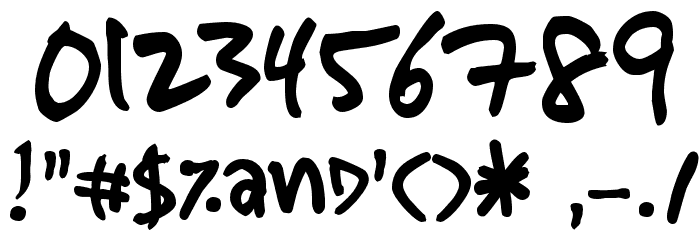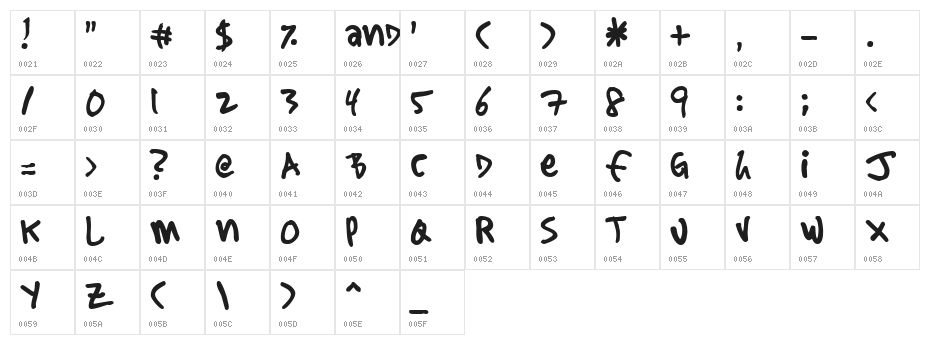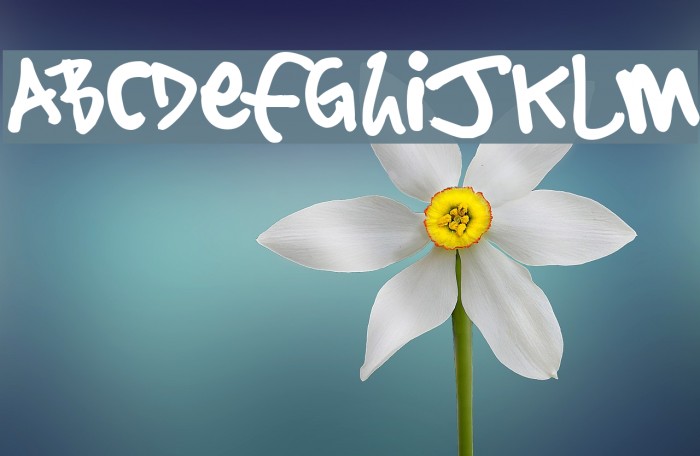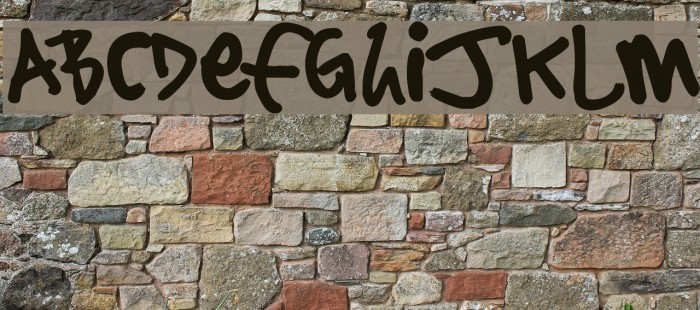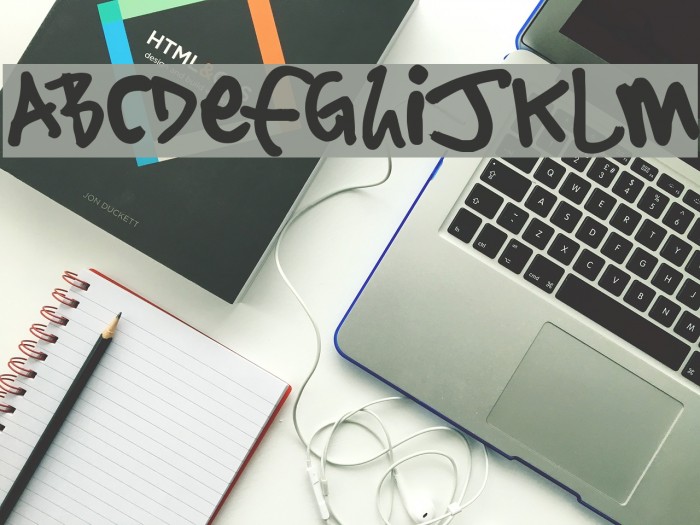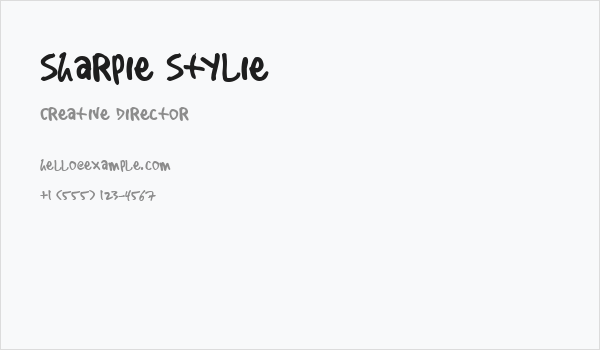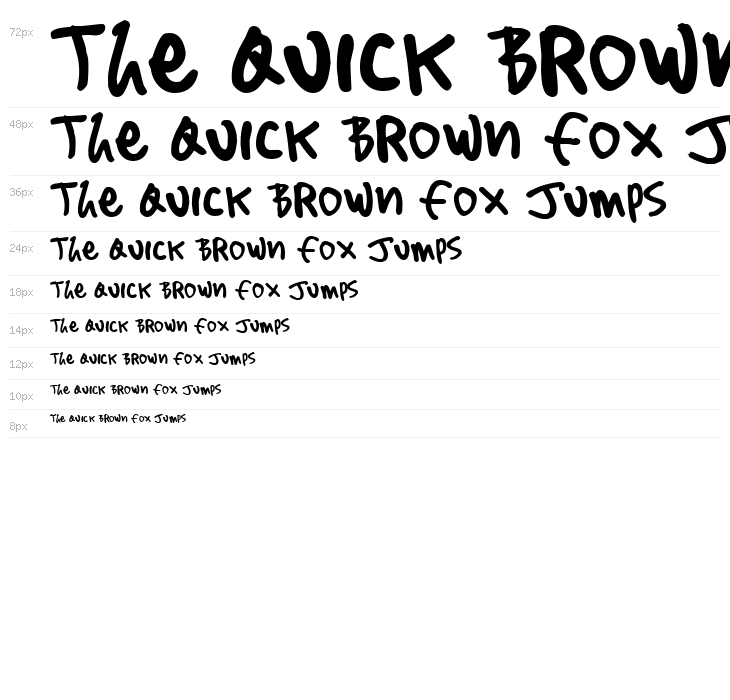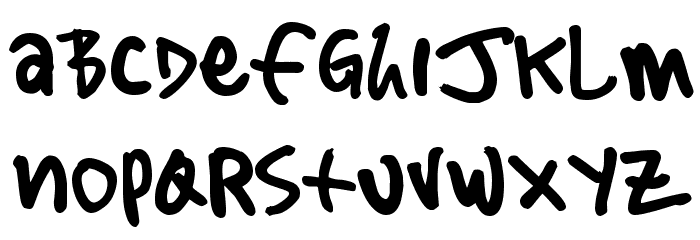
Sharpie Stylie Font
Sharpie Stylie Description
This font exudes a casual, handwritten style reminiscent of a bold marker or brush pen. The characters are thick and rounded, with a playful and informal appearance. The strokes are uneven, adding a dynamic and spontaneous feel to the text. Each letter has a unique flair, with some letters featuring exaggerated curves and angles, enhancing the font's lively personality. The numbers and special characters maintain this energetic style, making the font versatile for creative projects. Its boldness ensures readability while still conveying a sense of fun and creativity.
| Use Case | Headlines, Logos, Informal Invitations |
| Proposed Projects | Ideal for posters, greeting cards, social media graphics, and branding projects that require a personal touch. |